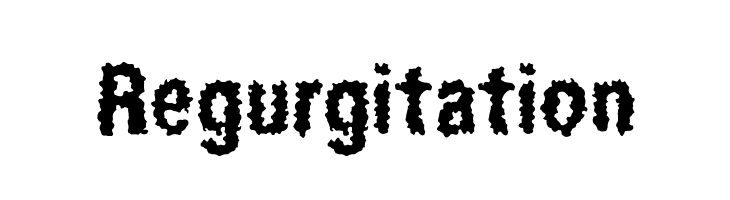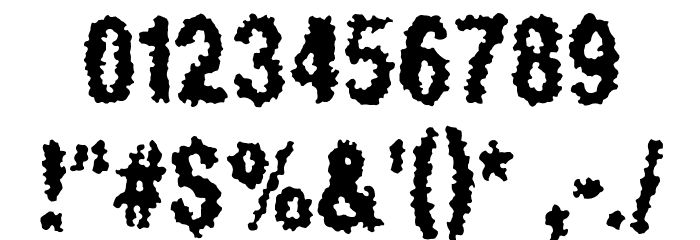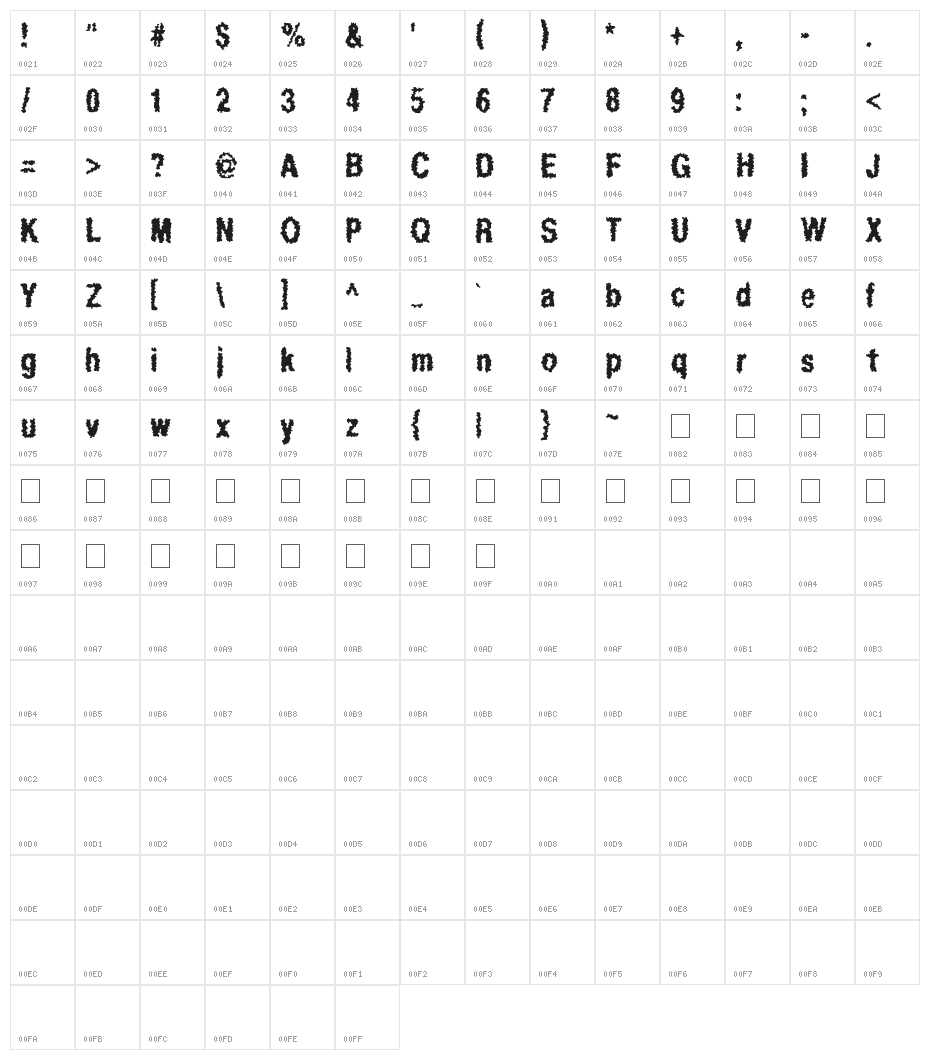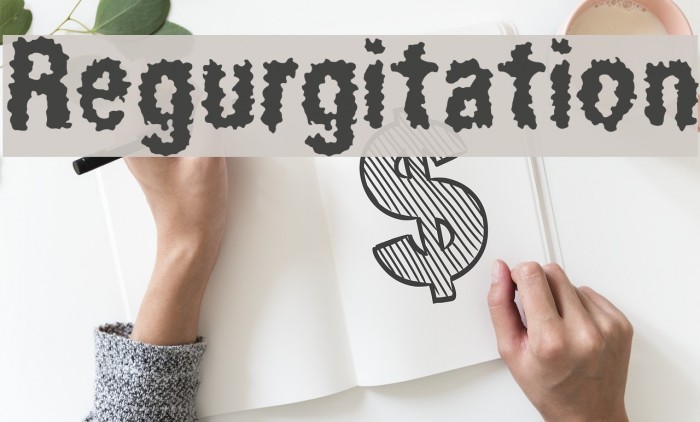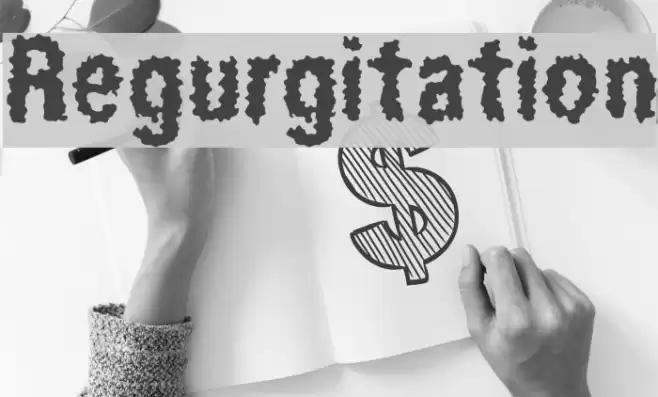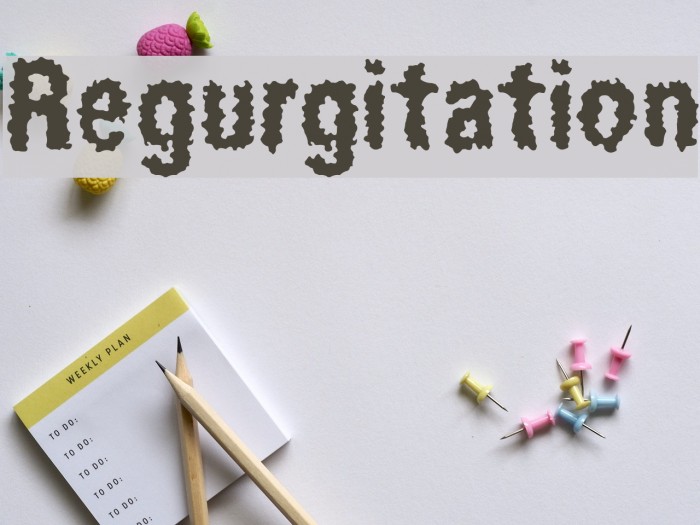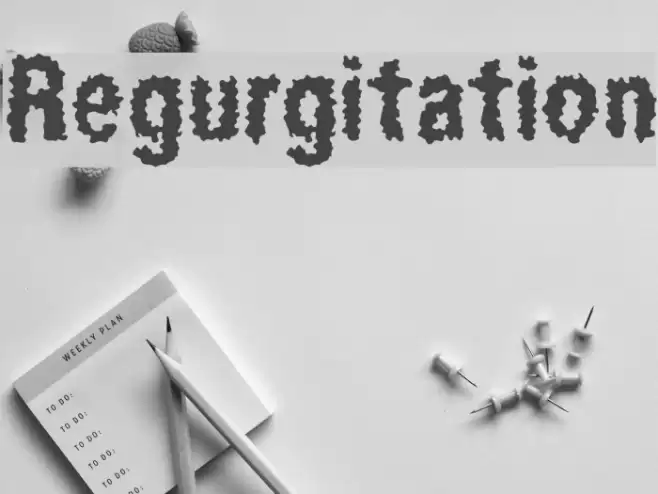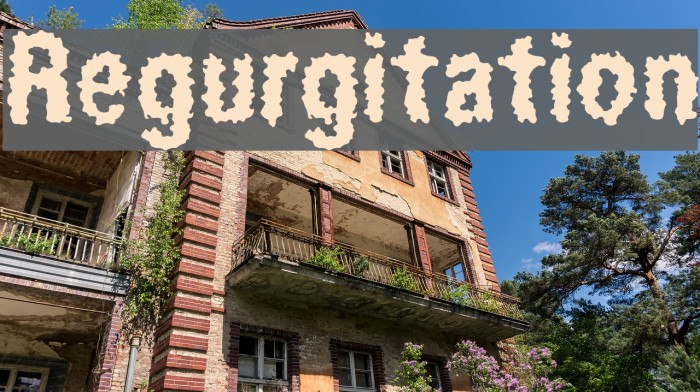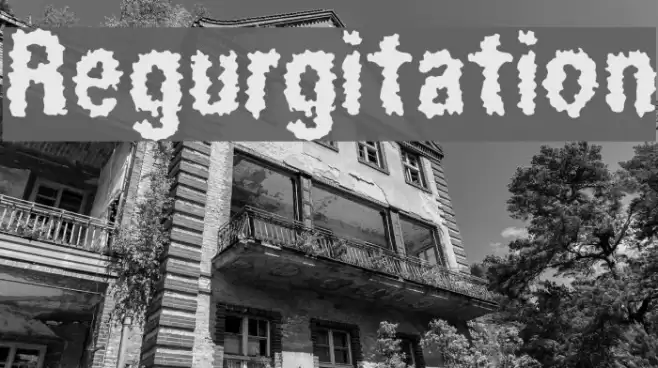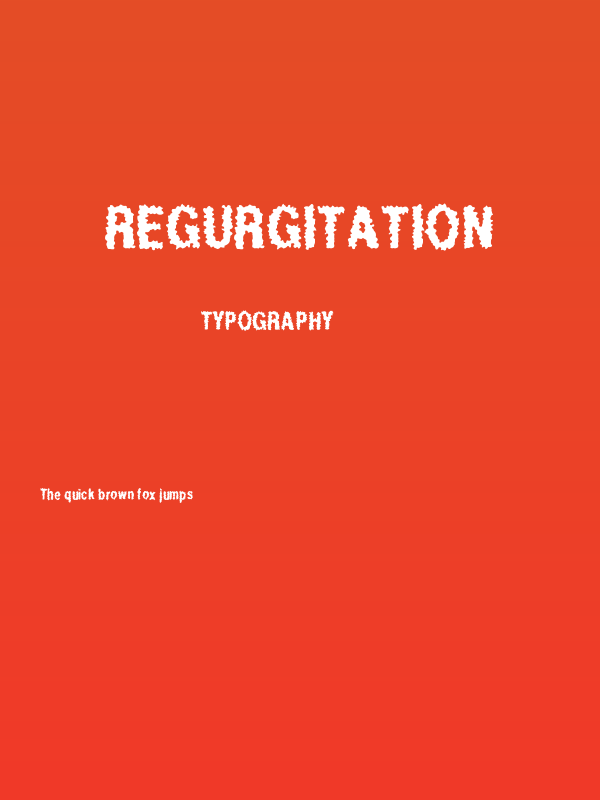
Regurgitation Font
Regurgitation Description
This font features a highly textured and irregular design, reminiscent of organic or natural forms. The characters appear as if they are composed of uneven, jagged edges, giving a unique and bold appearance. The uppercase and lowercase letters maintain a consistent style, with each character displaying a distinct, hand-crafted look. The numbers and special characters follow the same design principles, ensuring uniformity across the font set. This font's distinctive style makes it stand out, ideal for projects that require a strong visual impact.
| Proposed Projects | Ideal for posters, album covers, or any design needing a bold, organic aesthetic. |